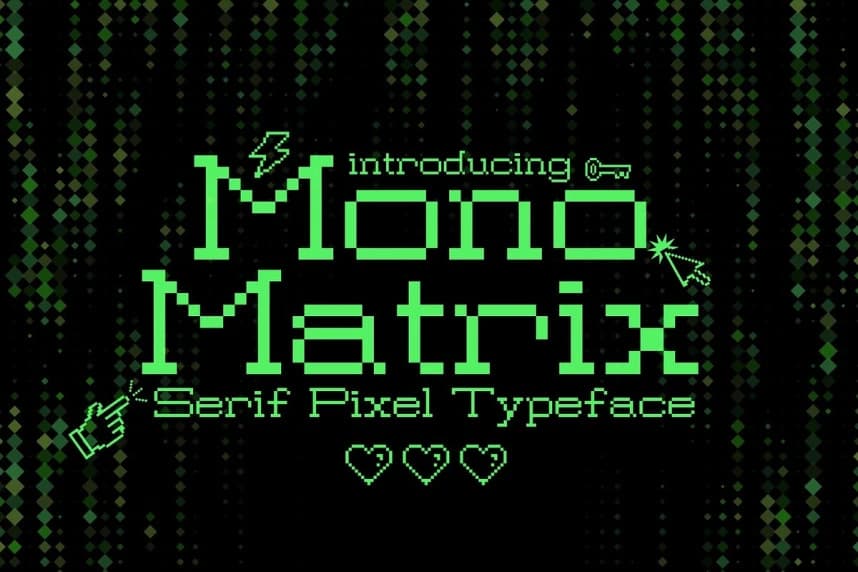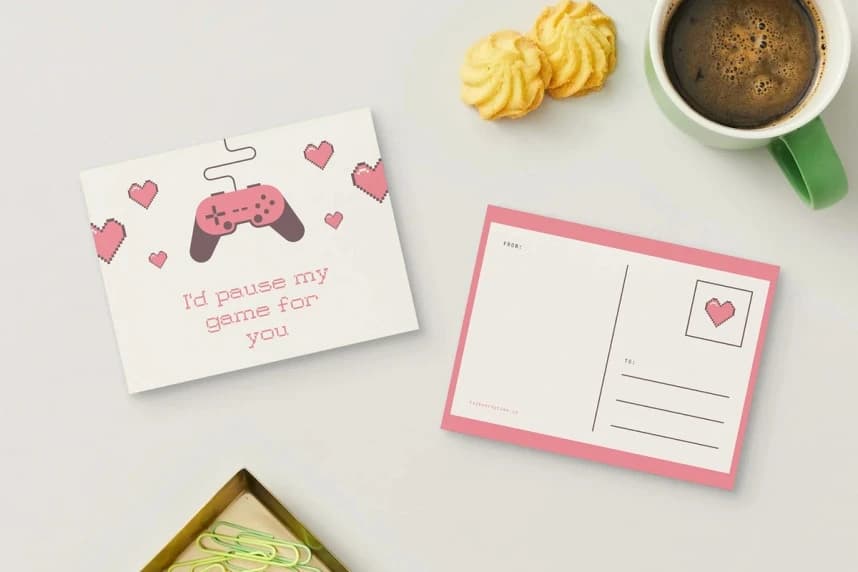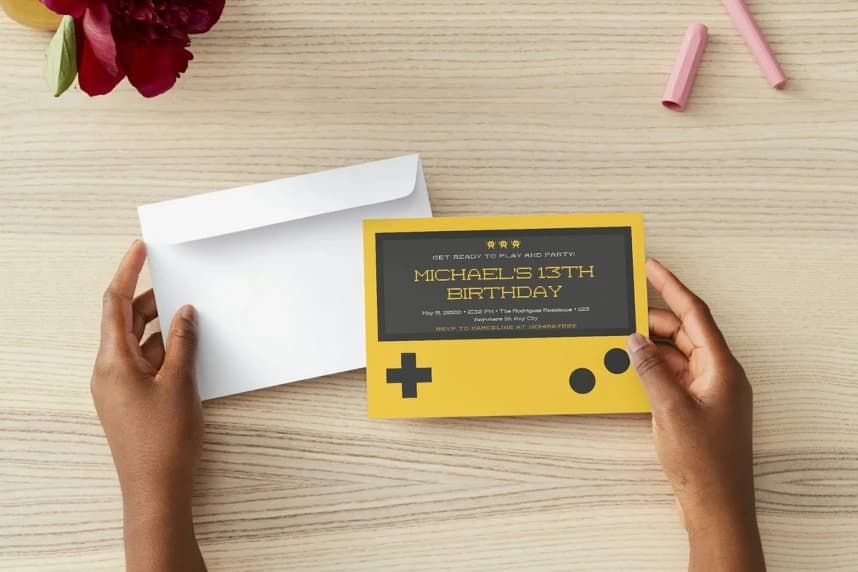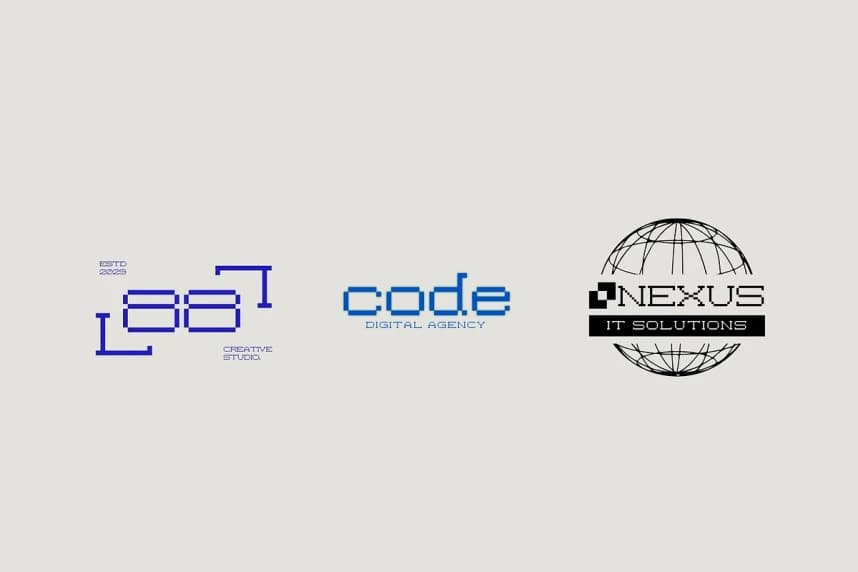
Mono Matrix Font
Mono Matrix Font is a distinctive serif pixel font that merges the precision of grid-based design with the timeless elegance of serif typography. Built on a structured pixel foundation, it introduces subtle serif details that elevate it beyond traditional blocky pixel fonts.